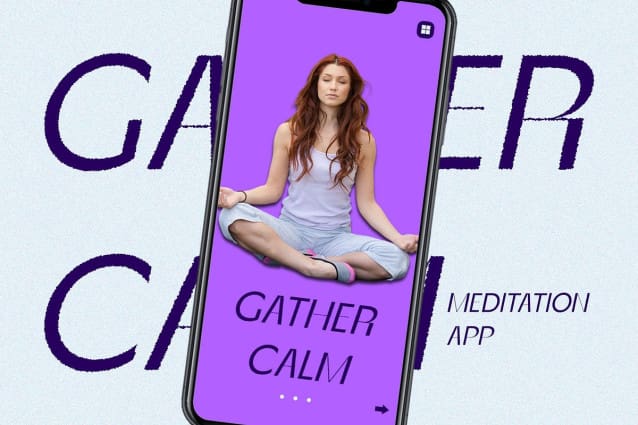
Berghan Rough Font
Berghan Rough Font: Bold and Distinctive Display Typeface. Captivating Sans Serif Design Berghan Rough features a striking sans serif grotesque design that commands attention. Its clean lines and bold presence make it ideal for various display purposes.
Enhanced with Rough Effects With added rough effects, This font takes on a unique and rugged appearance. These textured details add character and depth to each letterform, elevating its visual appeal.
Perfect for Display Needs Tailored for display applications, This font excels in grabbing viewers’ attention. Whether used in headlines, posters, or branding materials, its distinctiveness ensures effective communication.
Versatile and Eye-Catching Beyond its rugged charm, This font offers versatility in design. From urban street-style graphics to vintage-inspired layouts, it lends a dynamic and eye-catching element to any project.
Making a Bold Statement This font stands out as a bold and distinctive choice for display typography. Its sans serif grotesque form, coupled with rough effects, delivers a captivating visual impact suitable for a wide range of design applications. Step into the world of This font and make your displays truly unforgettable.